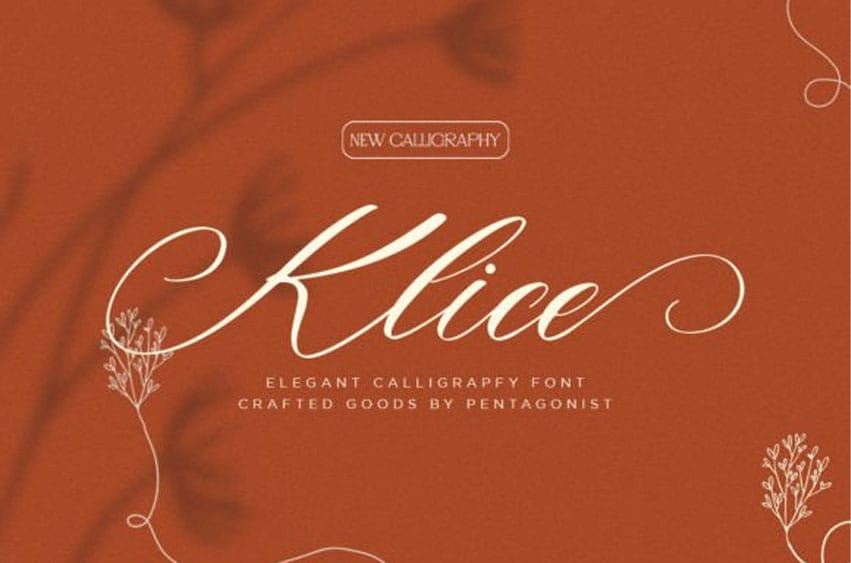
Klice Font is a stylish and elegant script font that exudes a sense of refinement and sophistication. With its graceful and flowing lines, this font is perfect for wedding invitations, feminine branding, and luxury projects.
Its timeless and classic design adds a touch of romance and charm to any project, making it a must-have for those seeking a refined and elegant look.